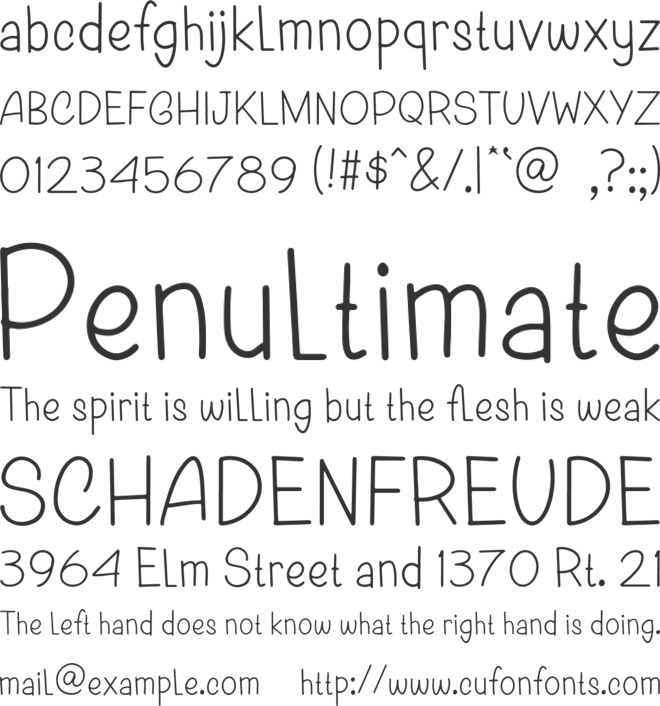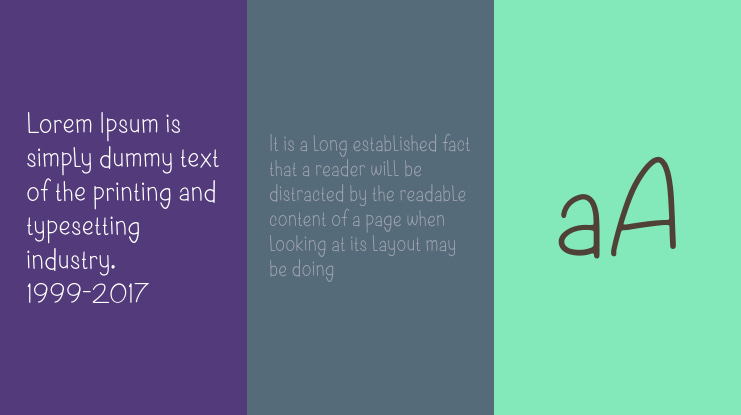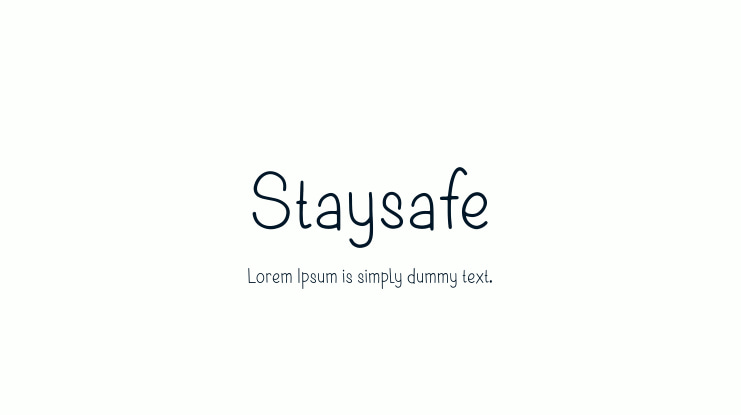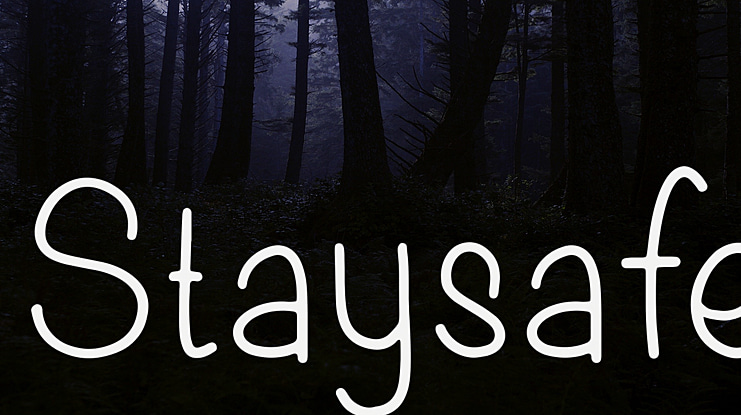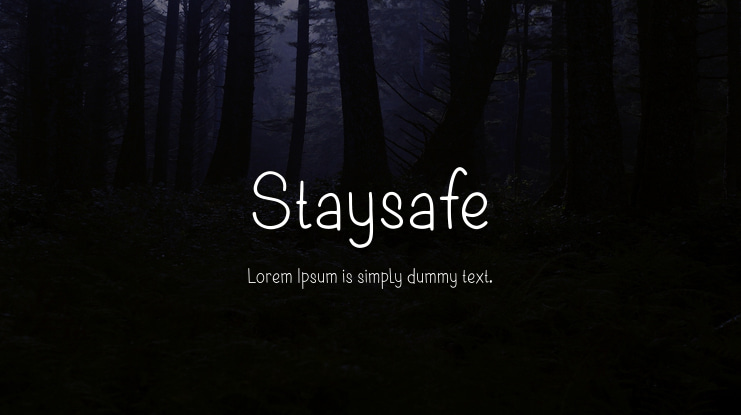
Staysafe Font
Staysave is a thin lettered and neat sans serif font. It can easily be matched to an incredibly large set of projects, so add it to your creative ideas and notice how it makes them stand out!